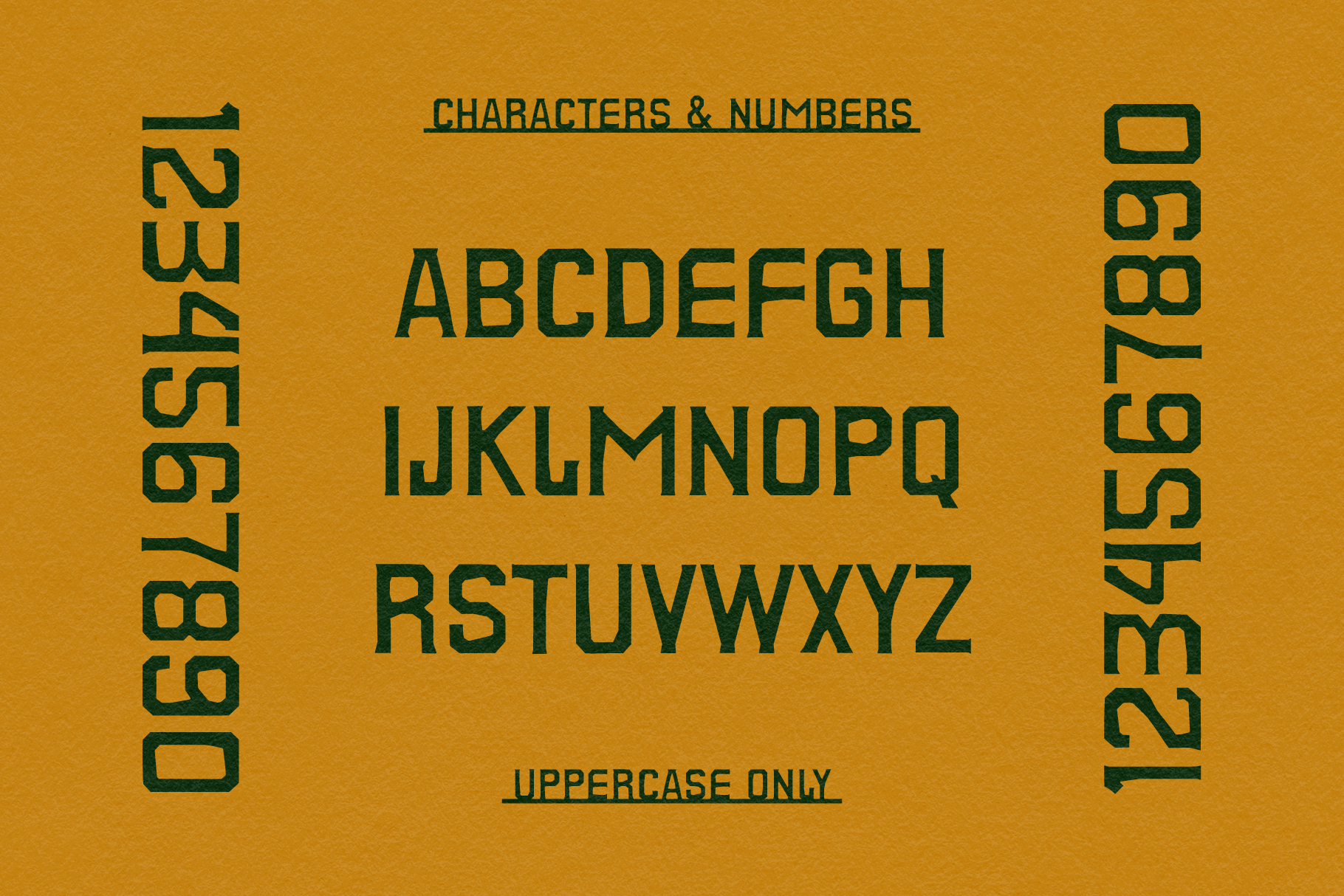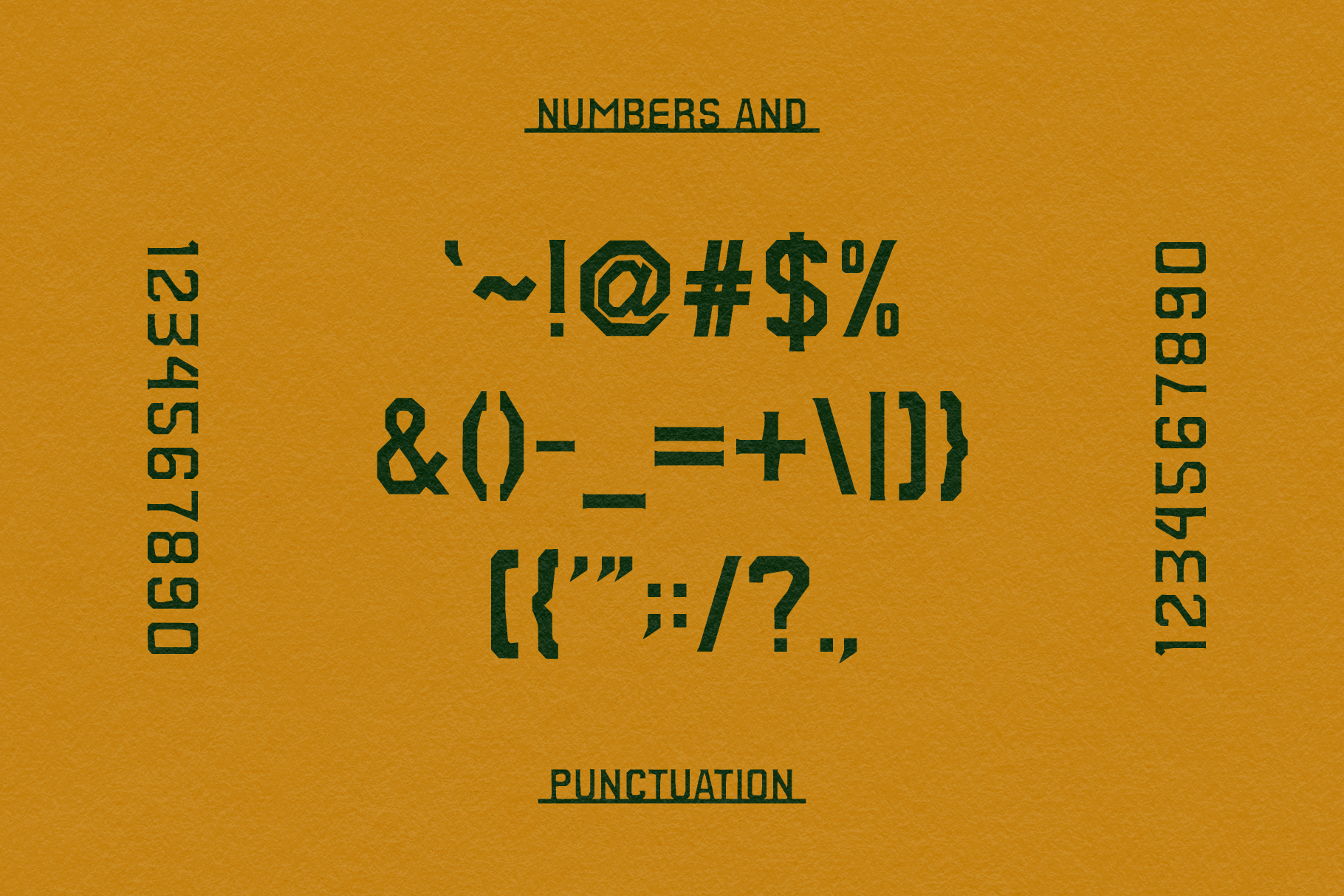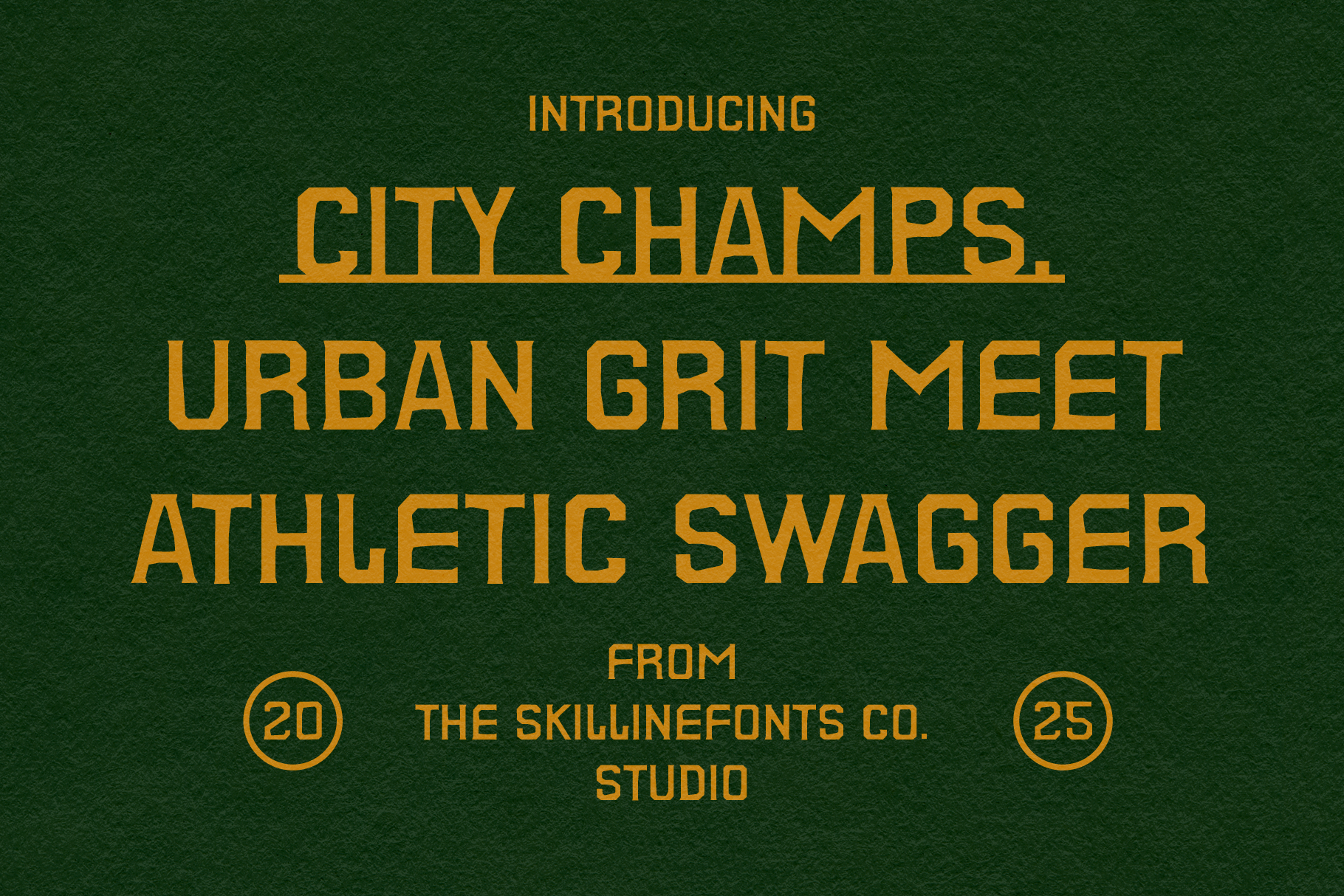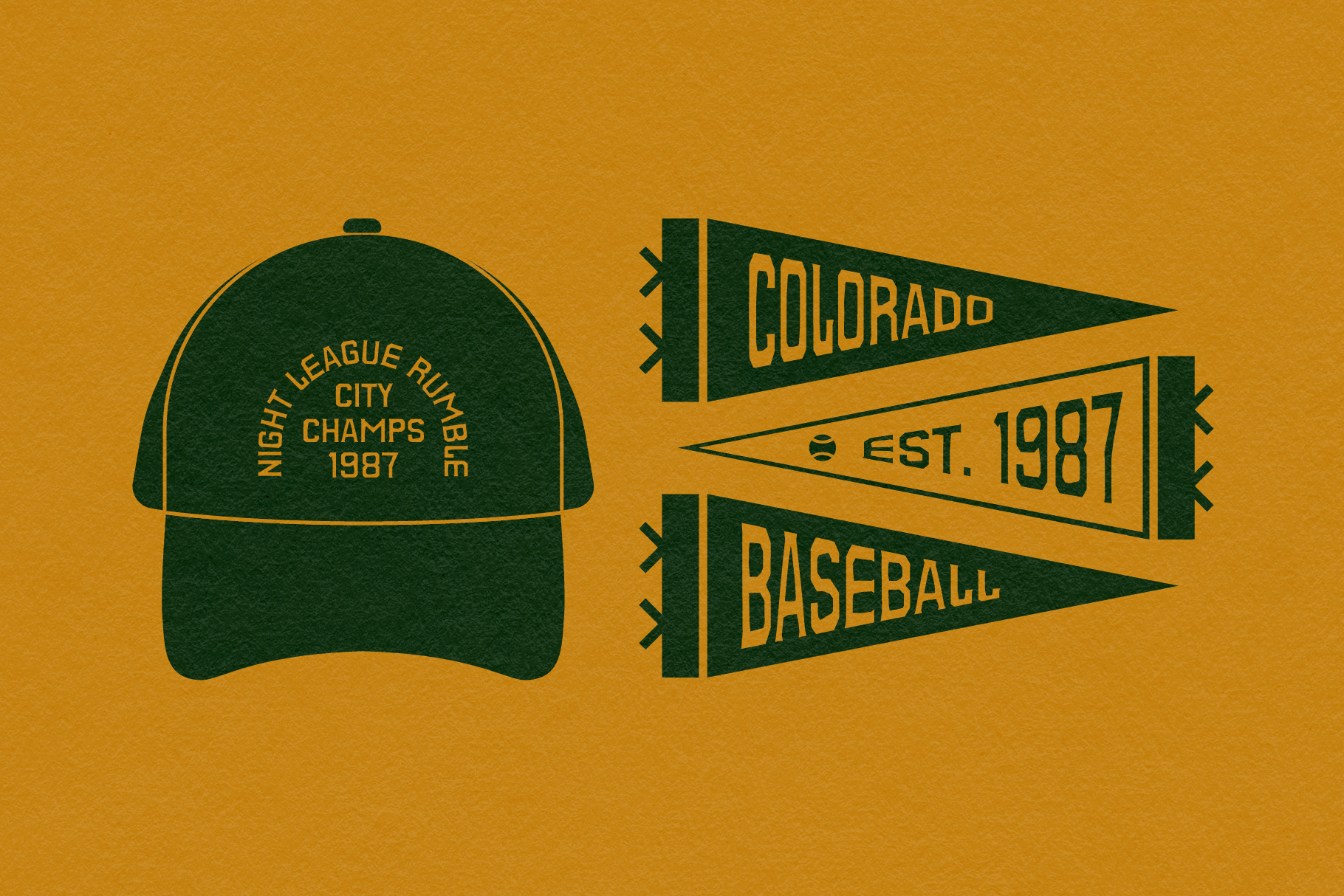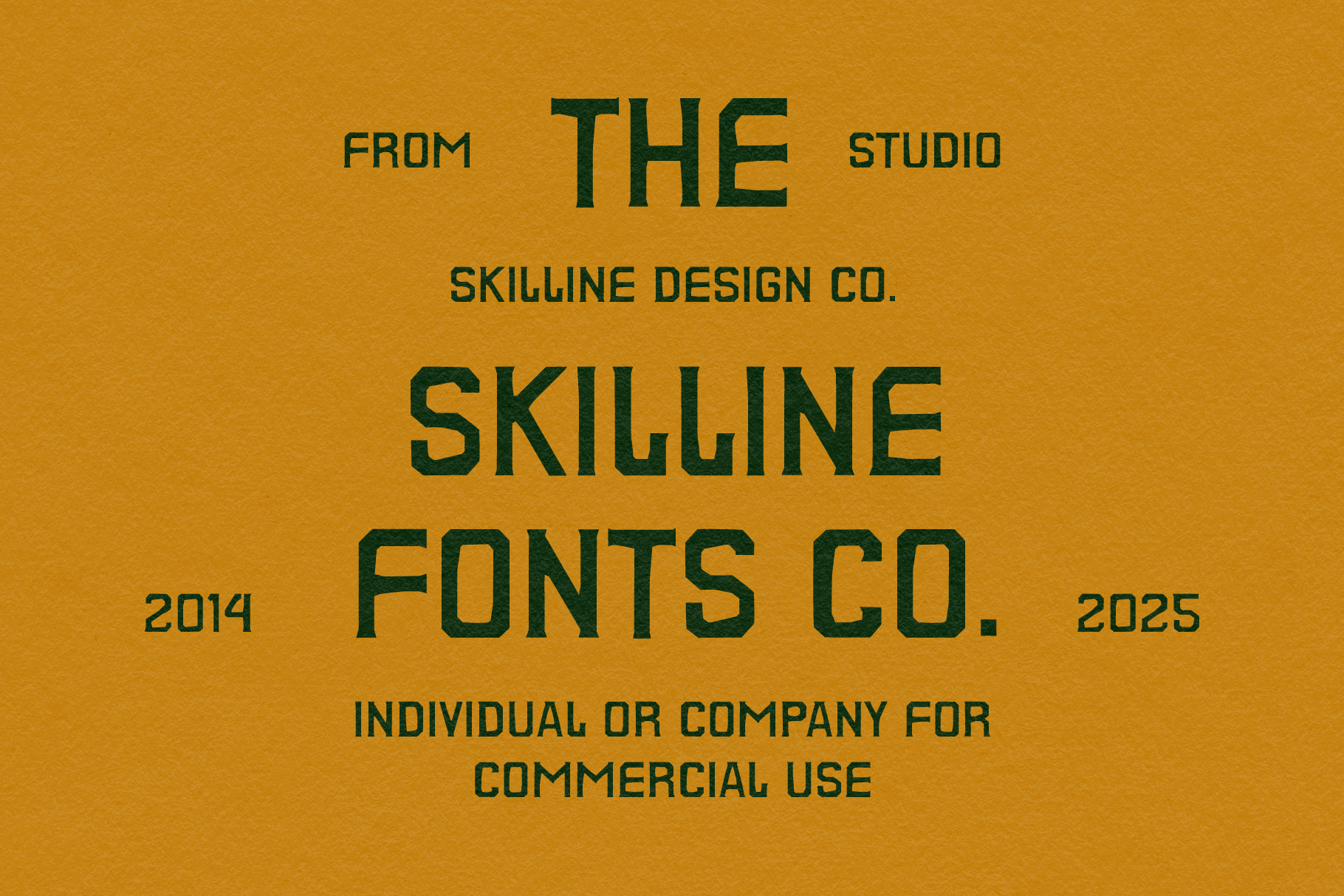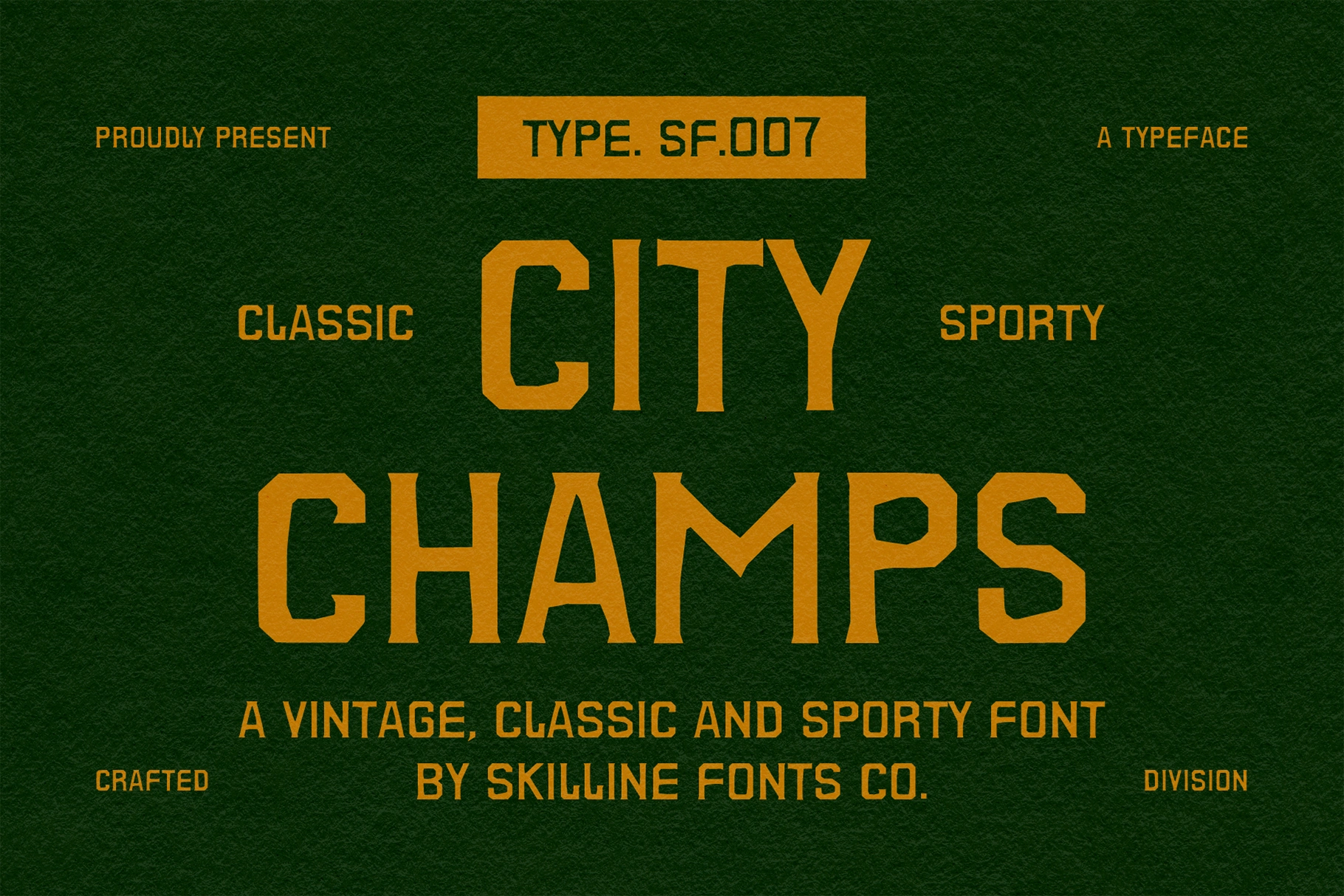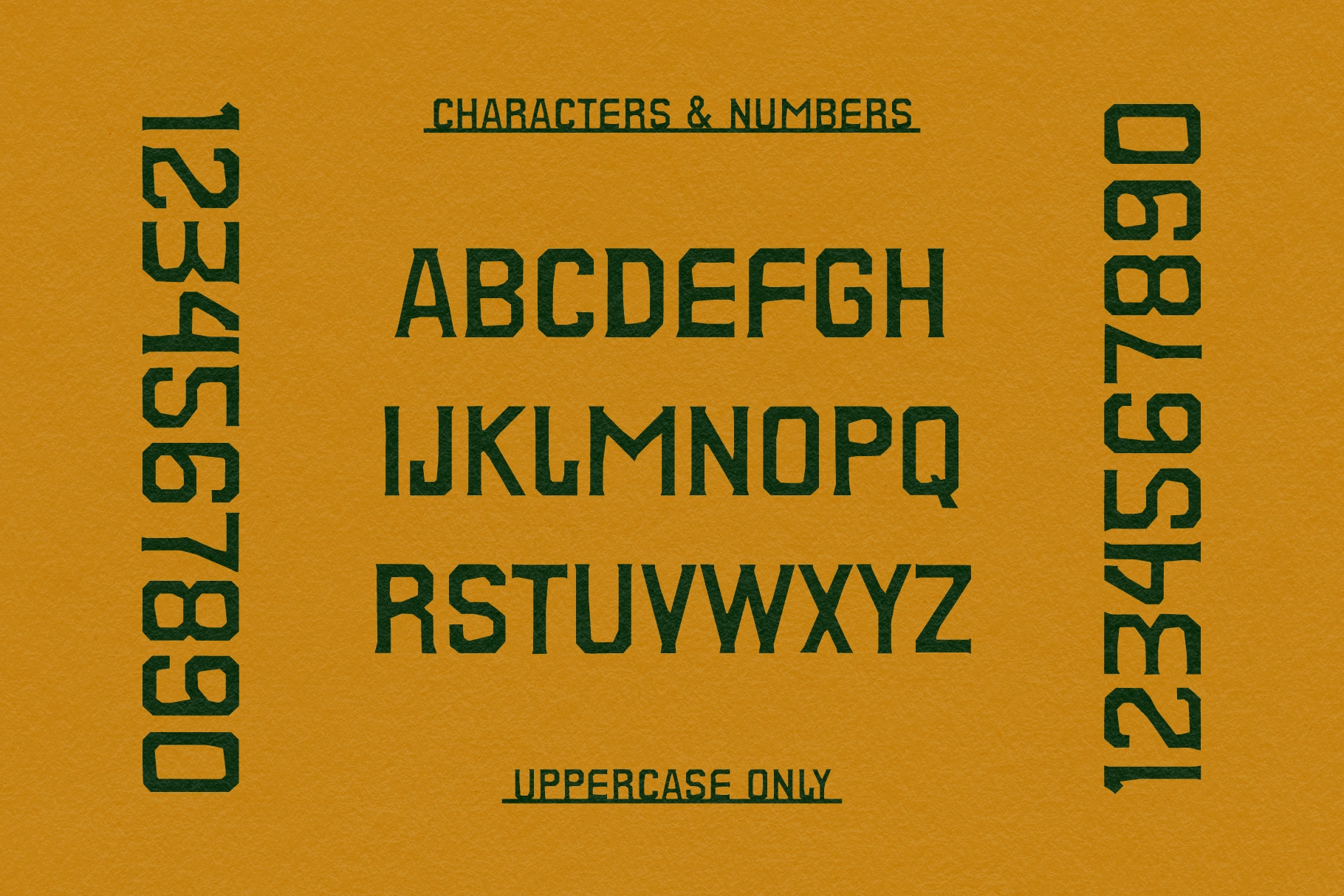
City Champs - Classic Sports Font
City Champs is a bold display font inspired by classic varsity lettering and vintage sports aesthetics. With its strong block structure and retro athletic vibe, it’s perfect for projects that demand confidence, energy, and a competitive edge. From team logos to event posters, City Champs delivers a timeless sports-inspired look with modern versatility.
Its all-caps style with sharp lines and balanced spacing makes it ideal for headlines, branding, merchandise, and apparel graphics. Whether you’re designing college-themed posters, retro packaging, or custom sportswear, City Champs brings boldness and clarity that stands out in any setting.
City Champs Typeface Designed For
City Champs is made for designers and brands who want to capture the power and nostalgia of athletic typography. It’s especially strong for sports team branding, gym apparel, motivational posters, and editorial layouts with a bold statement. Its vintage athletic roots make it a natural choice for merchandise like hats, jerseys, and streetwear, while also shining in logos, signage, and marketing materials that need an instant impact.